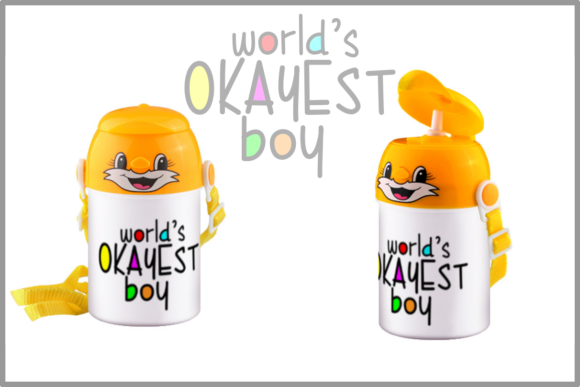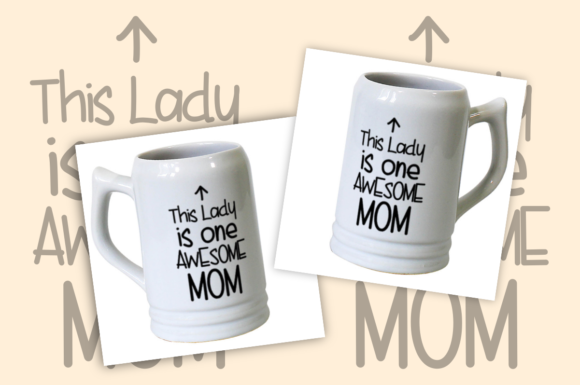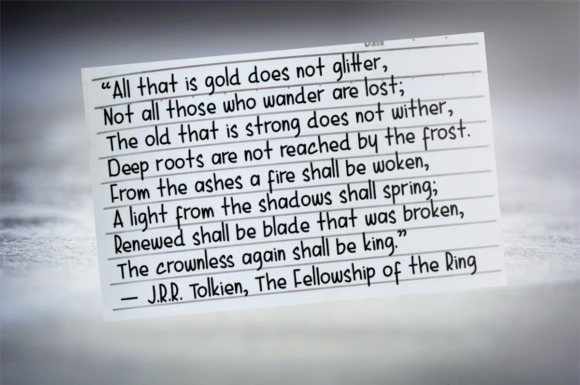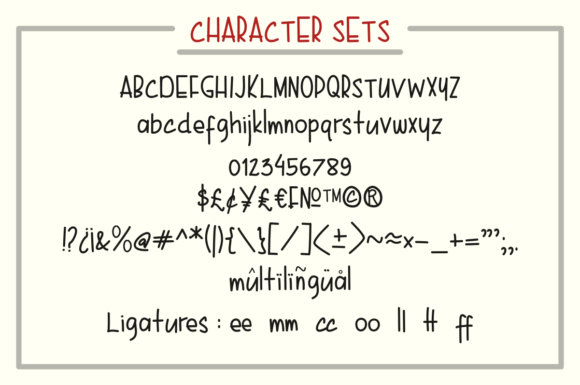
Karenina Handwriting Font
About Karenina Handwriting Font
Karenina is a quirky and fun, natural-looking handwriting font. Use it to add a casual charm to any design project!